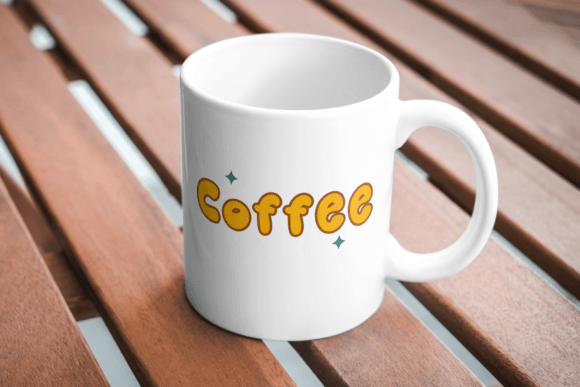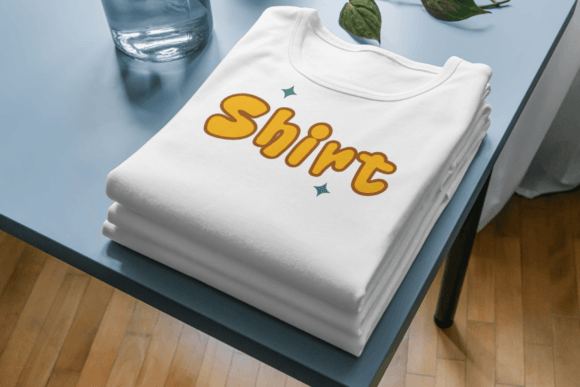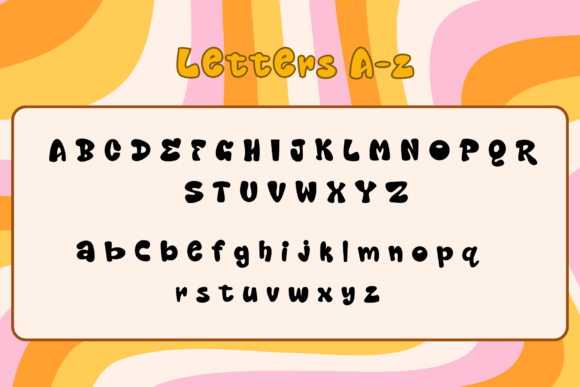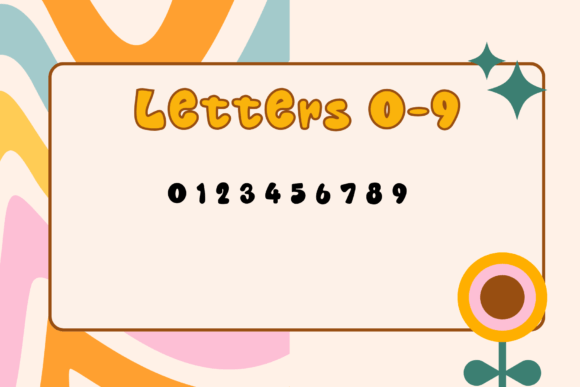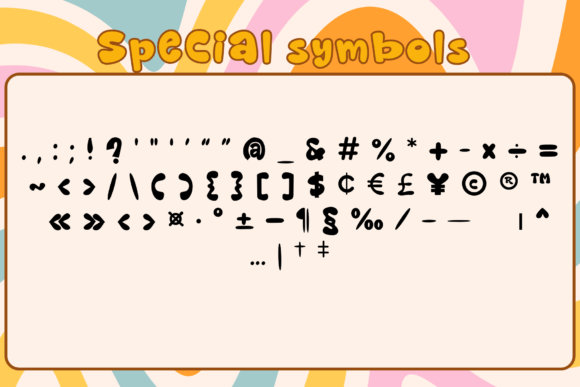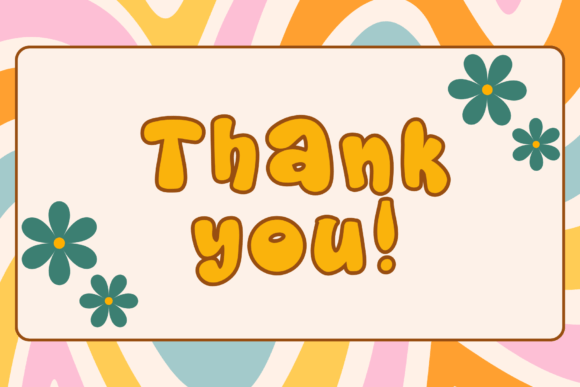
The Groovy World of Andrean Font
I’ll never forget the time I was working on a project for a client who wanted a fun, playful design that screamed retro vibes. I spent hours scouring the internet for the perfect font, but nothing seemed quite right. That was until I stumbled upon Andrean Font. This fun and cute groovy font has been a game-changer for my designs, and I’m excited to share its awesomeness with you! 😊
Andrean Font: A Personal Review
- ✨ **Retro Bold Typography**: Andrean Font is inspired by the bold, playful typography of the retro era. It’s perfect for designs that need a fun and groovy vibe.
- ✅ **Versatility**: This font is perfect for a wide range of designs, including book covers, posters, packaging, merchandise, logos, and more.
- 💥 **Attention-Grabbing**: Andrean Font is sure to grab attention with its bold, playful letters.
While Andrean Font is an amazing font, there are a few quirks to be aware of:
- ⚠️ **Limited Use in Formal Designs**: Due to its playful nature, Andrean Font may not be suitable for formal designs or projects that require a more professional tone.
- 🤔 **Glyph Limitations**: While Andrean Font has a wide range of glyphs, it may not have every special character or symbol you need.
The Backstory of Andrean Font
Andrean Font was designed by a team of creatives who wanted to capture the fun, playful spirit of retro typography. Inspired by the bold, colorful designs of the 1960s and 1970s, Andrean Font is the perfect blend of groovy and modern.
| Font Name | Andrean Font |
| Author | Kik Design |
Q: What is Andrean Font?
A: Andrean Font is a fun and cute groovy font inspired by retro bold typography. It’s perfect for designs that need a playful, energetic vibe.
Q: Is Andrean Font easy to read?
A: Yes, Andrean Font is designed to be easy to read, even at smaller font sizes.